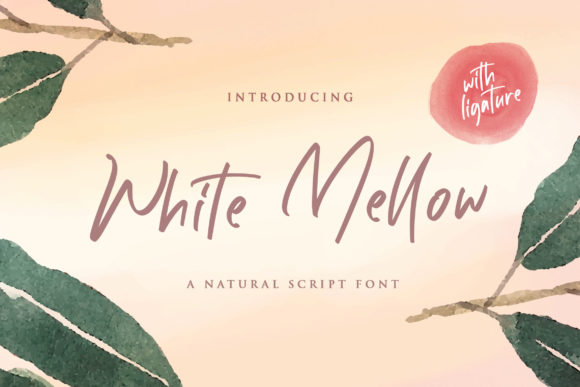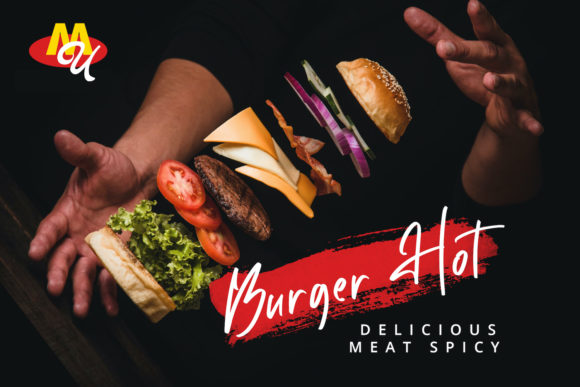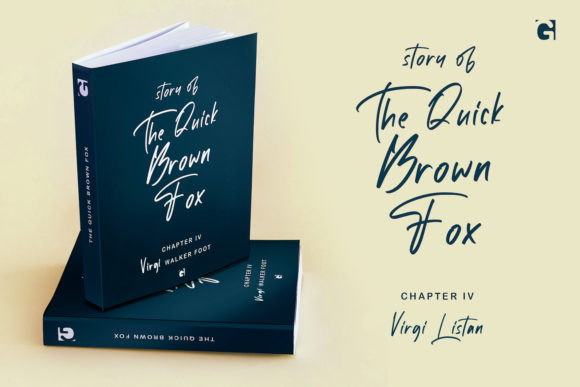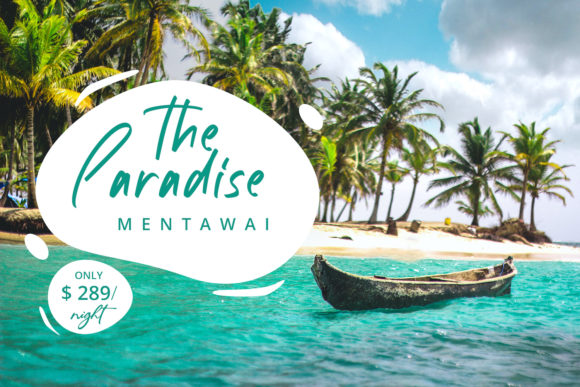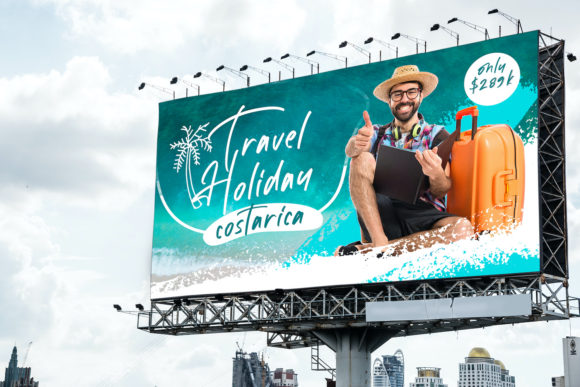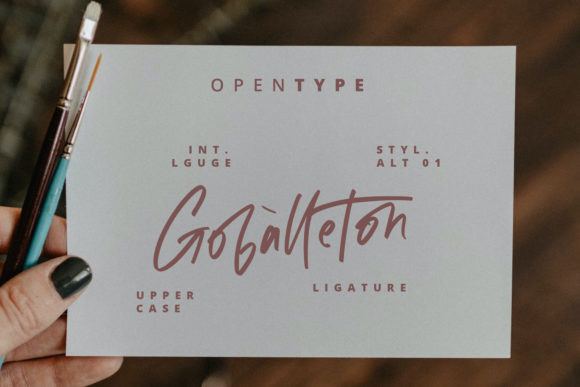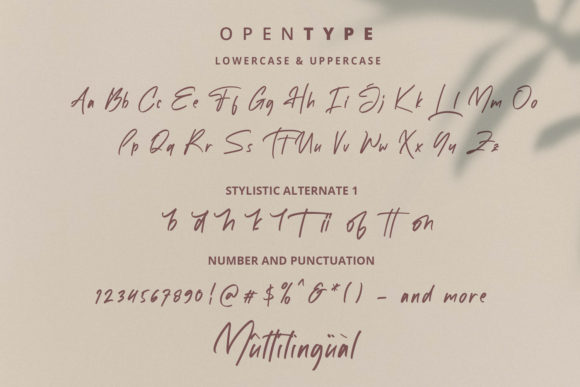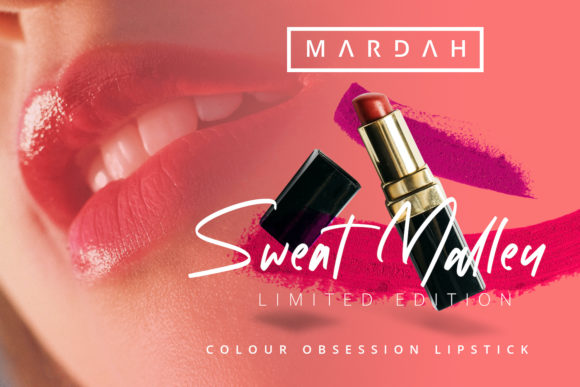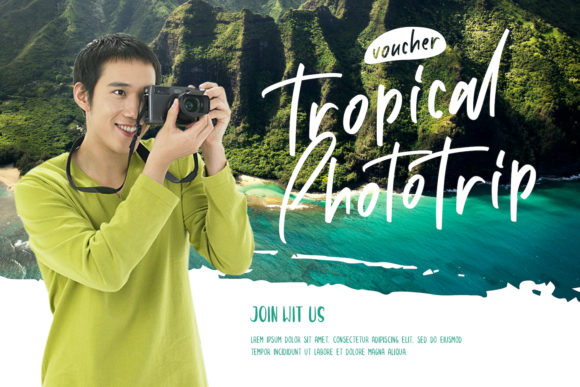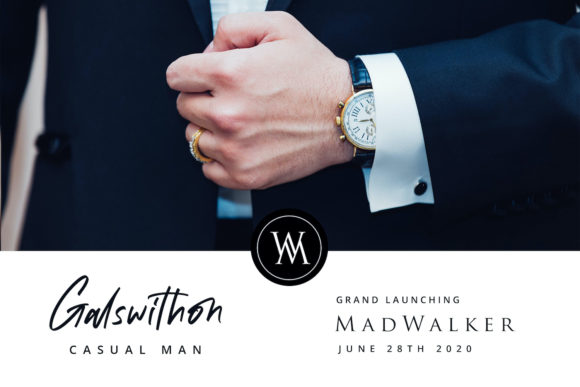
White Mellow Font
About White Mellow Font
White Mellow is a modern, fun script font, created by using an authentic handwritten pen. Clean and a little bit quirky, this font is the perfect fit for all of your logos, branding, social media, and crafty DIY projects.